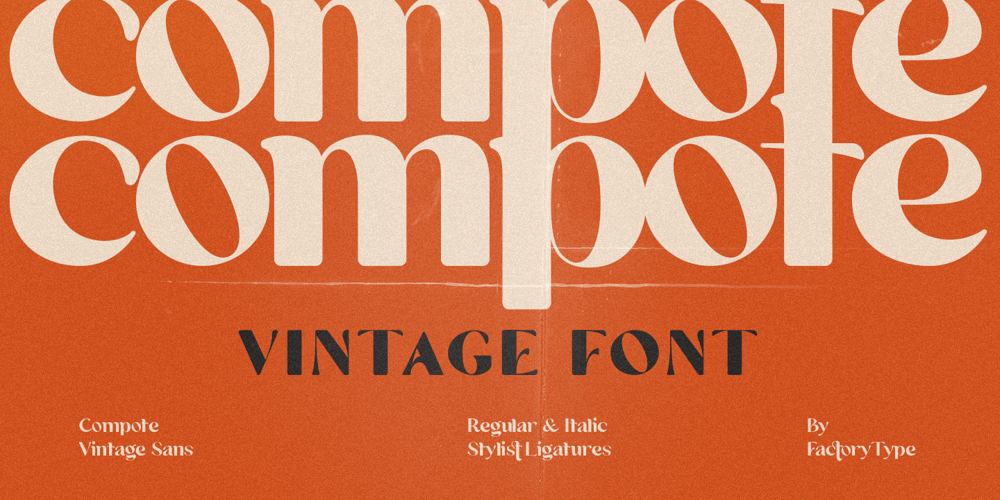
Compote
Compote font
Compote Font Family was designed by Wahyu Rahmawan and published by Factory738. Compote contains 10 styles and family package options. Compote is a fashionable sans serif font that is both retro and sophisticated. The sans serif font pays homage to tradition, while the smooth curves evoke a 70s groovy vibe. Compote is the ideal complement to vintage bringing it up and logos. There are numbers, punctuation, and multilingual letters, as well as a distinct lower and uppercase. The ligature and italic fonts will be useful for anything your imagination can dream up! 5 Weights (Light, Regular, Semibold, Bold and Black) 2 Styles (Regular and Italic) Basic Latin A-Z and a-z Numerals & Punctuation Stylistic Ligatures Multilingual Support for ä ö ü Ä Ö Ü … Free updates and feature additions Thanks for looking, and I hope you enjoy it.